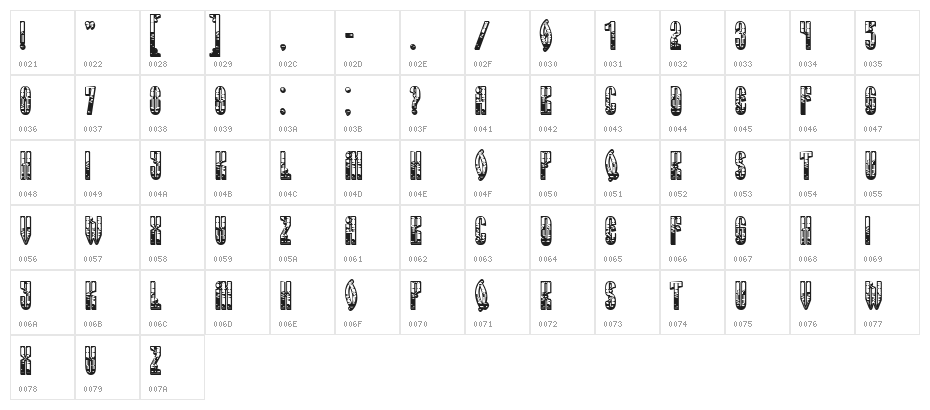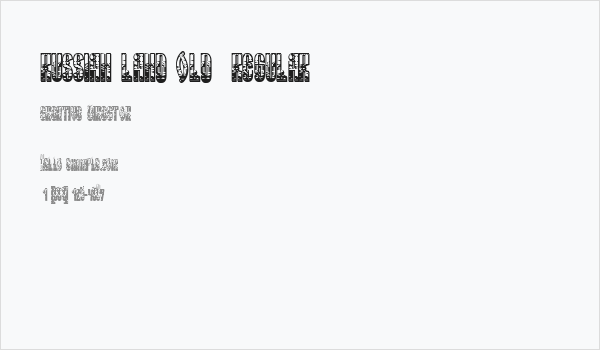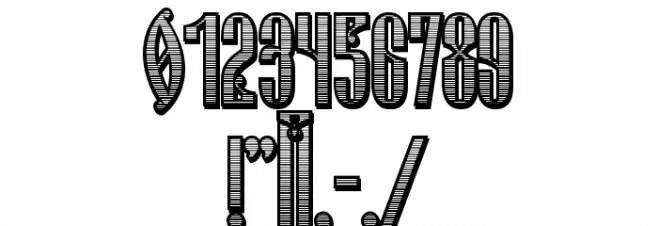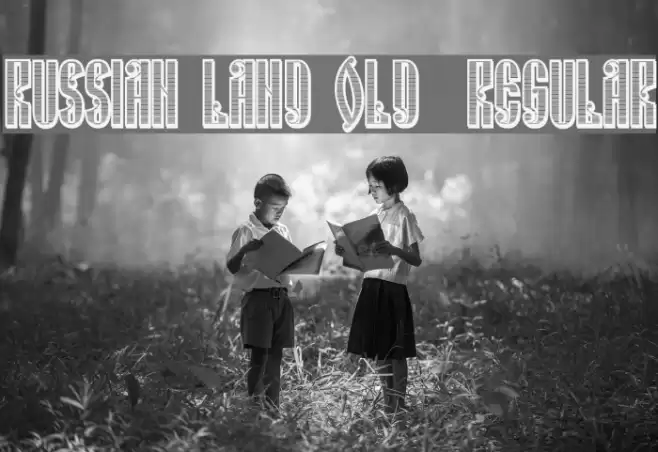
Russian Land Old Regular Font
Russian Land Old Regular Description
This font features a highly decorative and intricate design, characterized by its bold, striped patterns that run vertically through each character. The letters are tall and narrow, with a distinct vintage flair reminiscent of old signage or posters. Each character is uniquely detailed, giving the font a textured appearance that stands out in any design. The numbers and special characters maintain the same ornate style, ensuring consistency throughout. This font is ideal for projects that require a strong visual impact and a touch of nostalgia.
| Width | Condensed |
| Overall Style | Vintage |
| Proposed Projects | Ideal for vintage-themed posters, signage, branding, and any project needing a bold, decorative touch. |